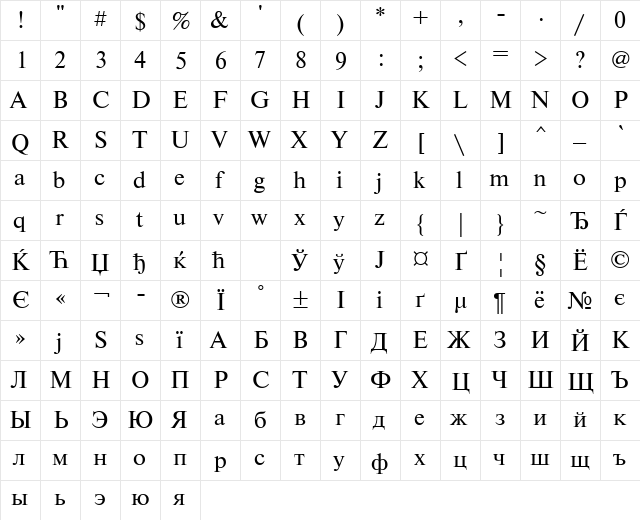
NewtonWINCTT Regular
Design Context for NewtonWINCTT Typeface
NewtonWINCTT is a composed and adaptable typeface that performs quietly and consistently across a wide range of design contexts.